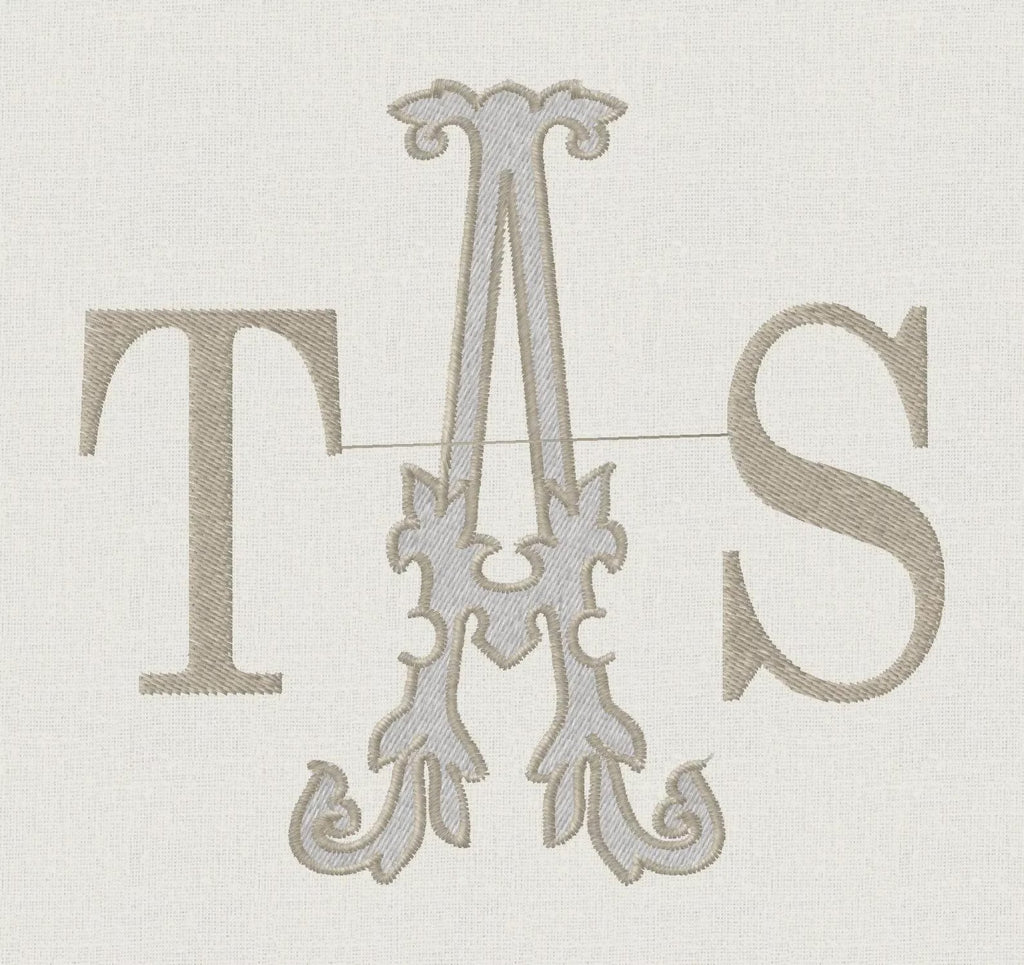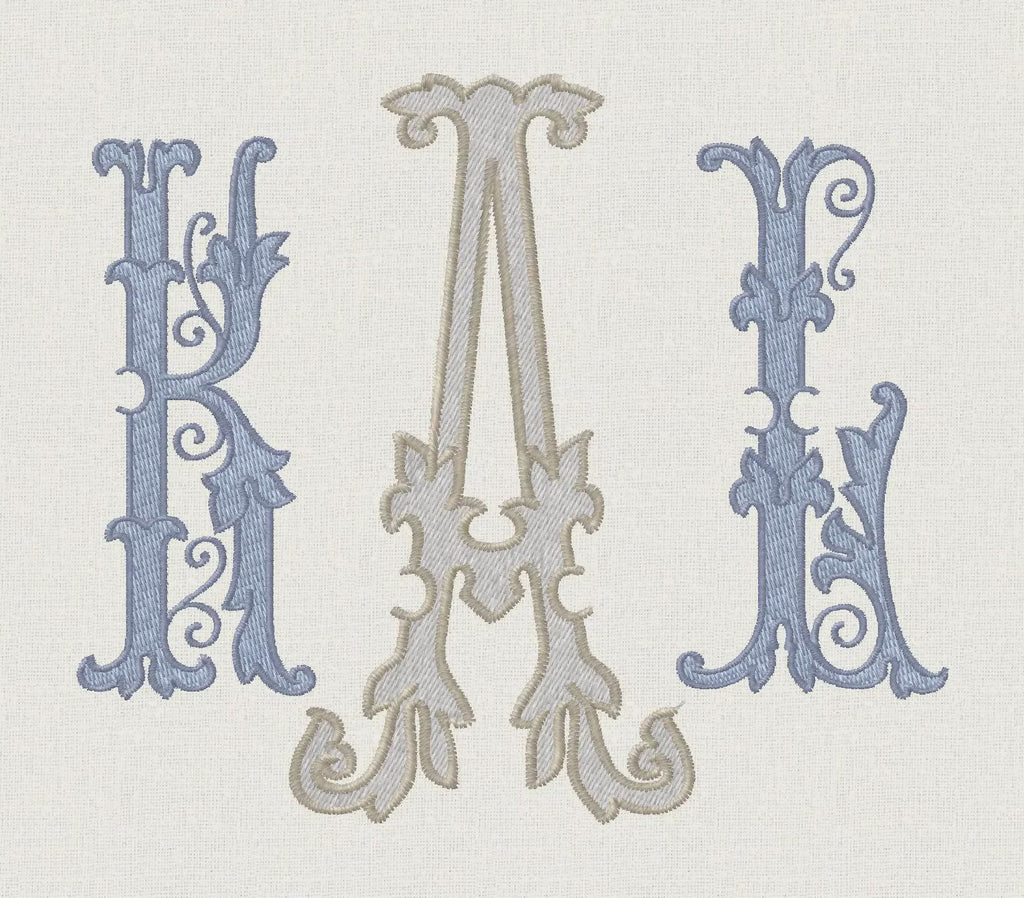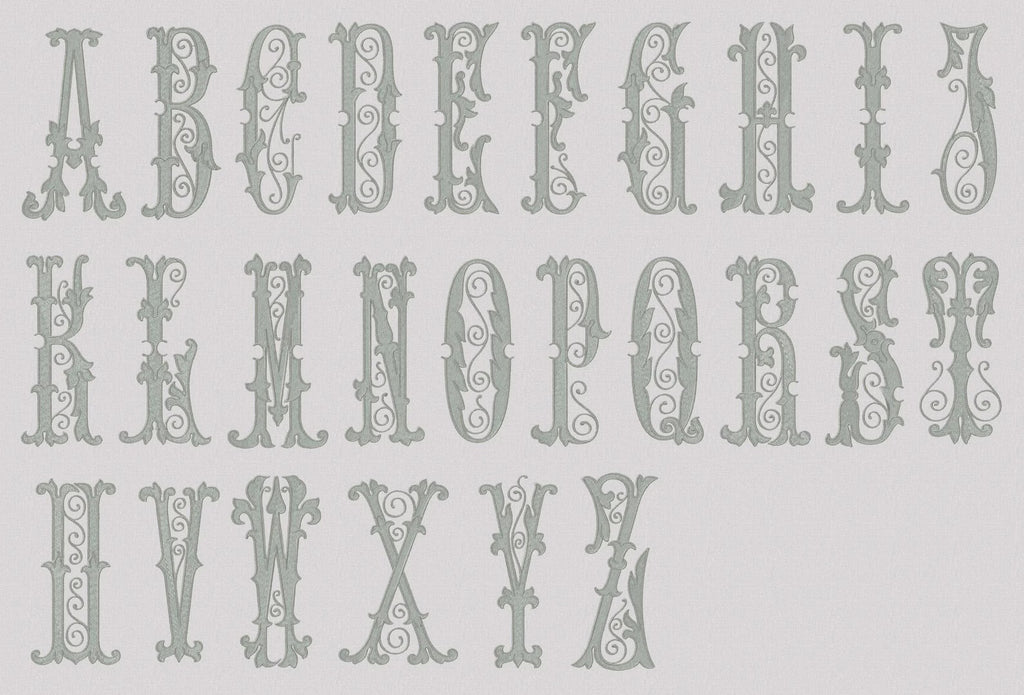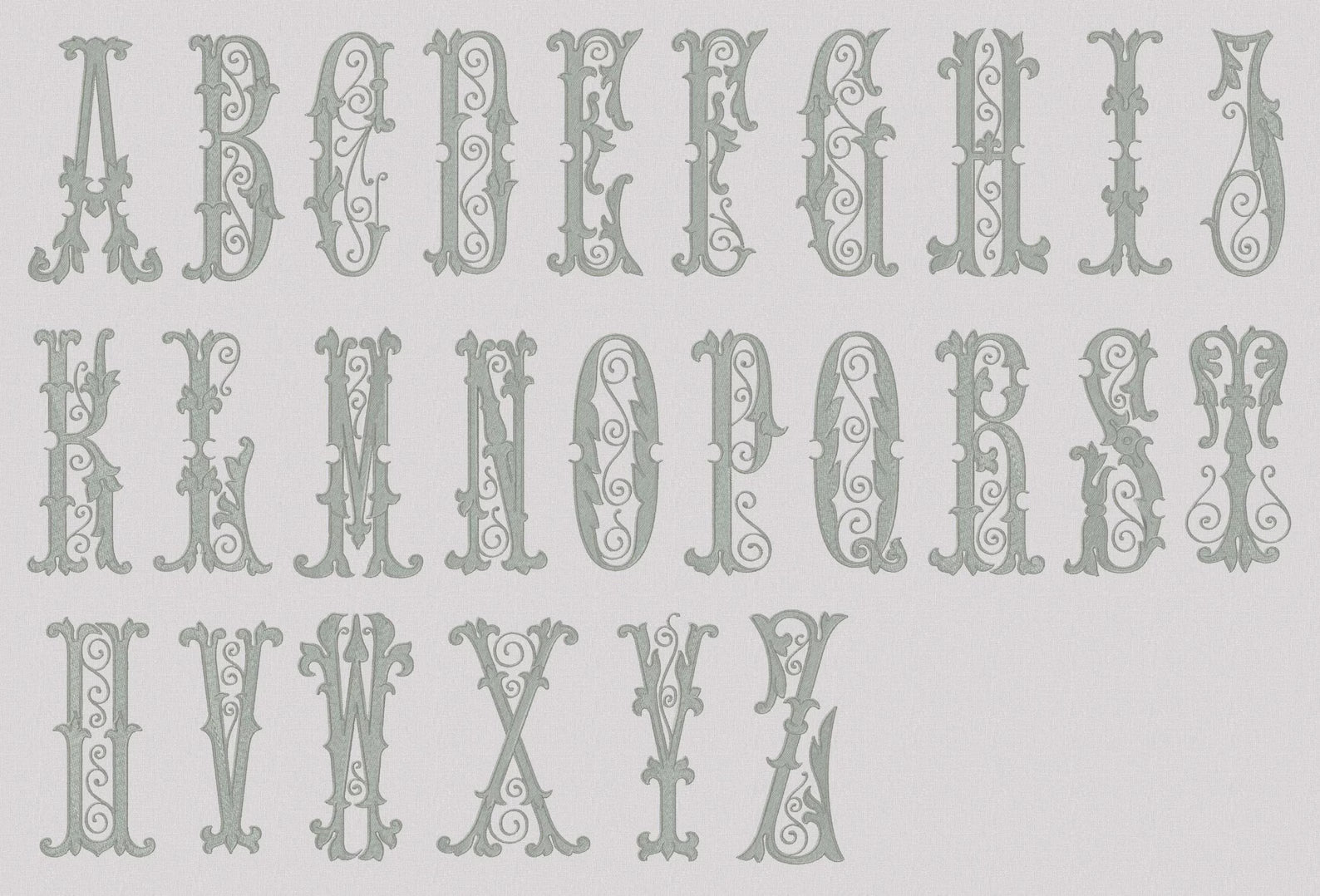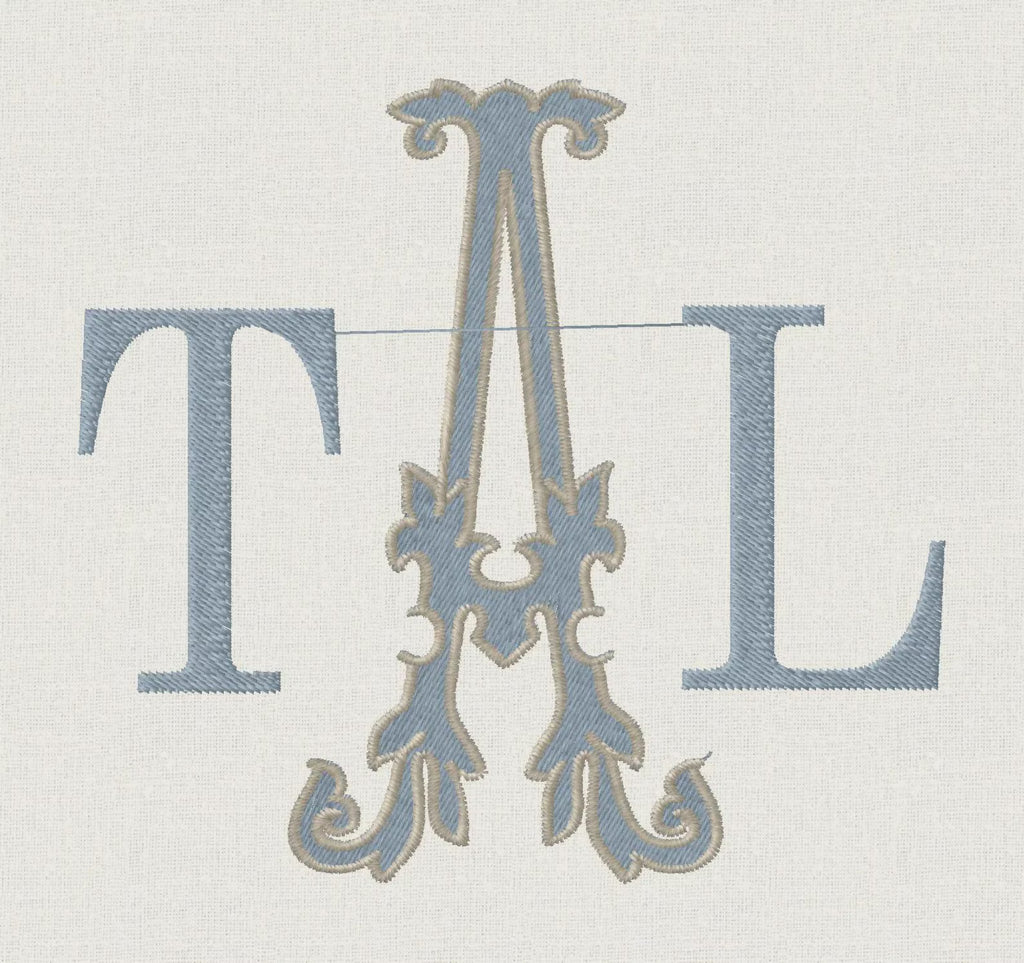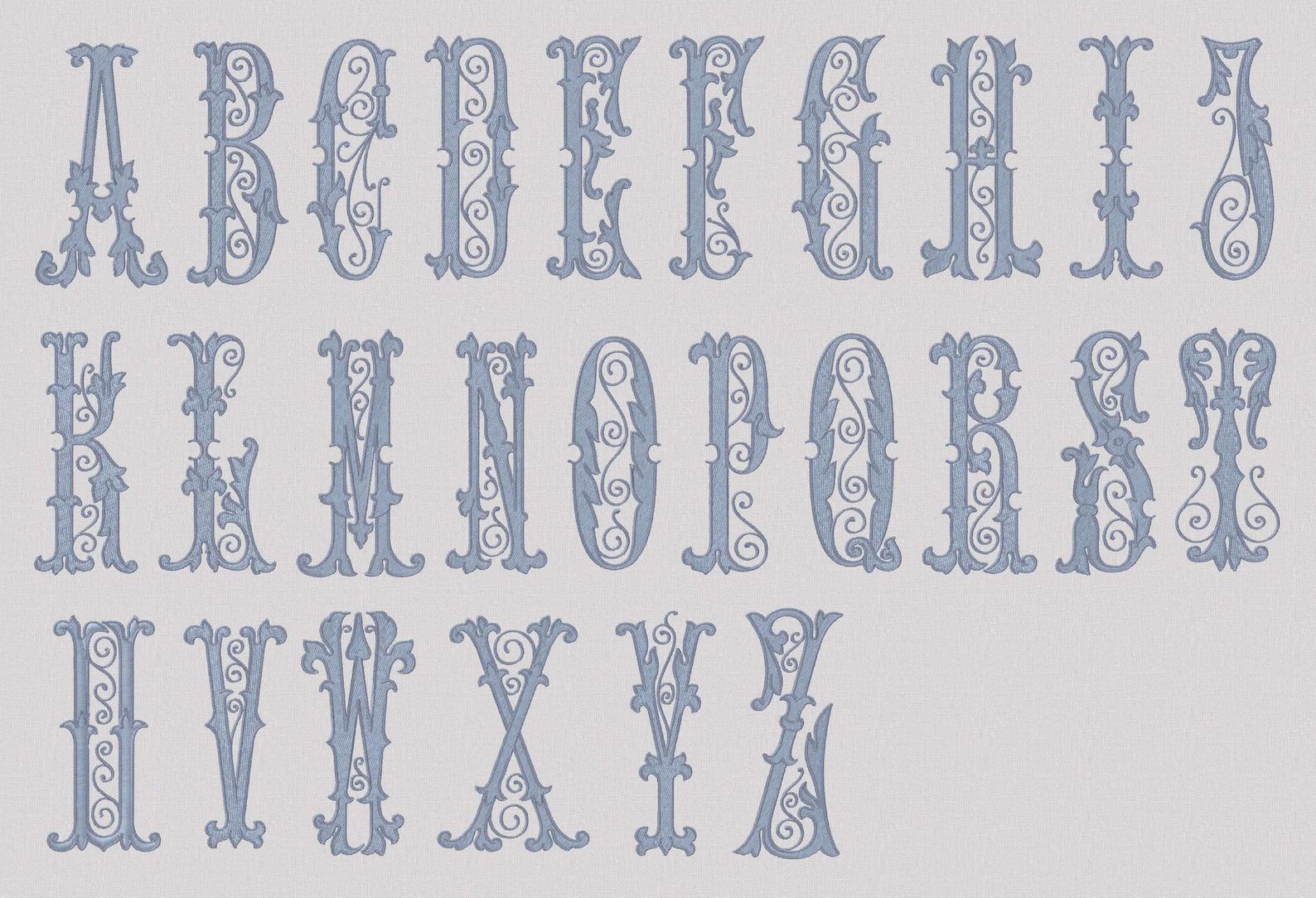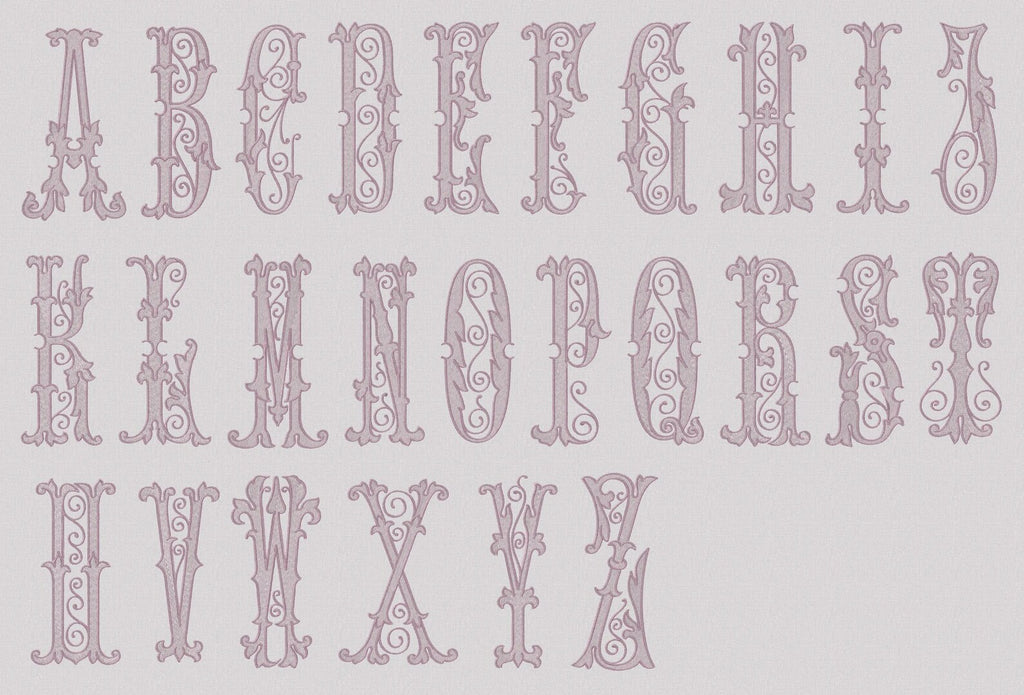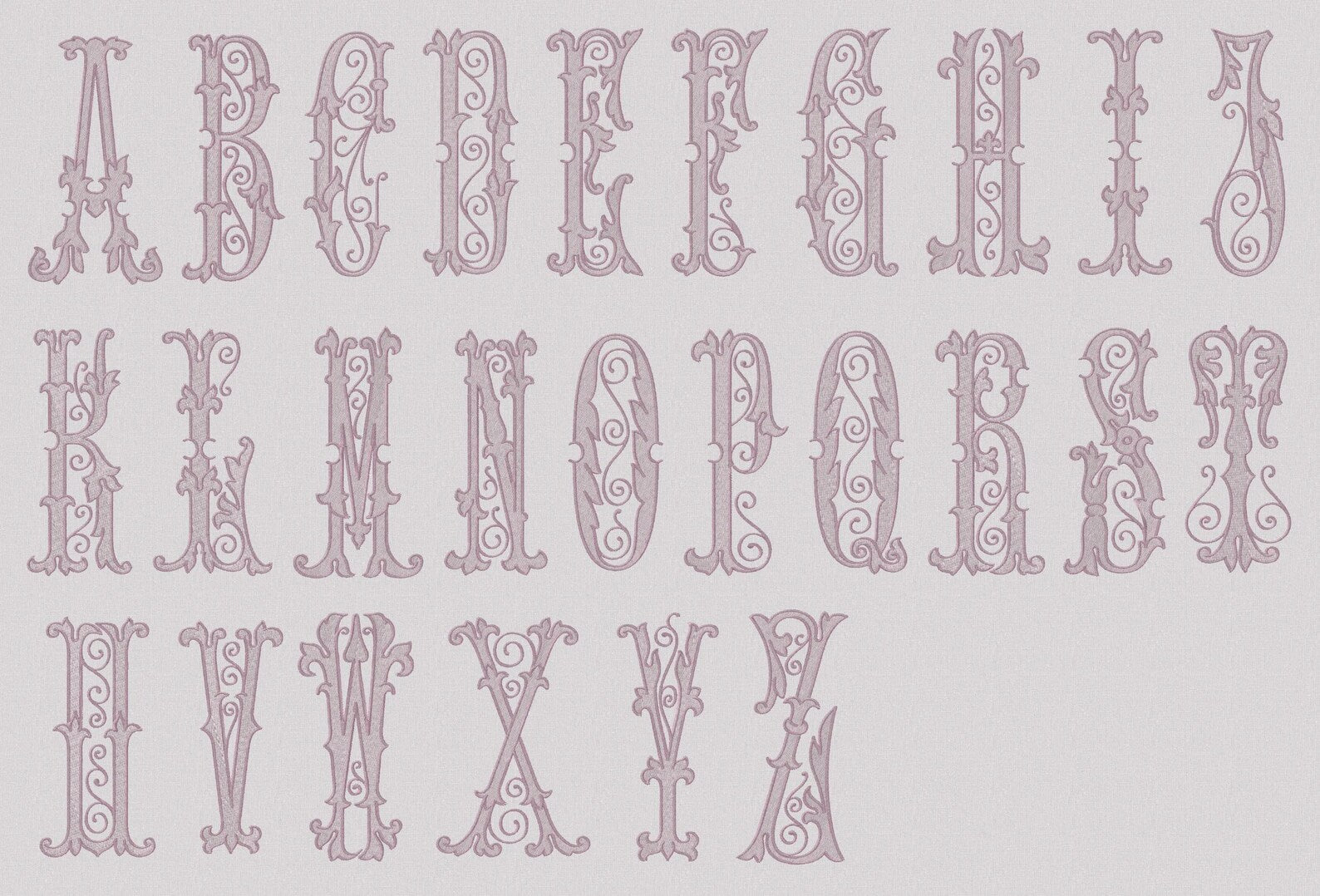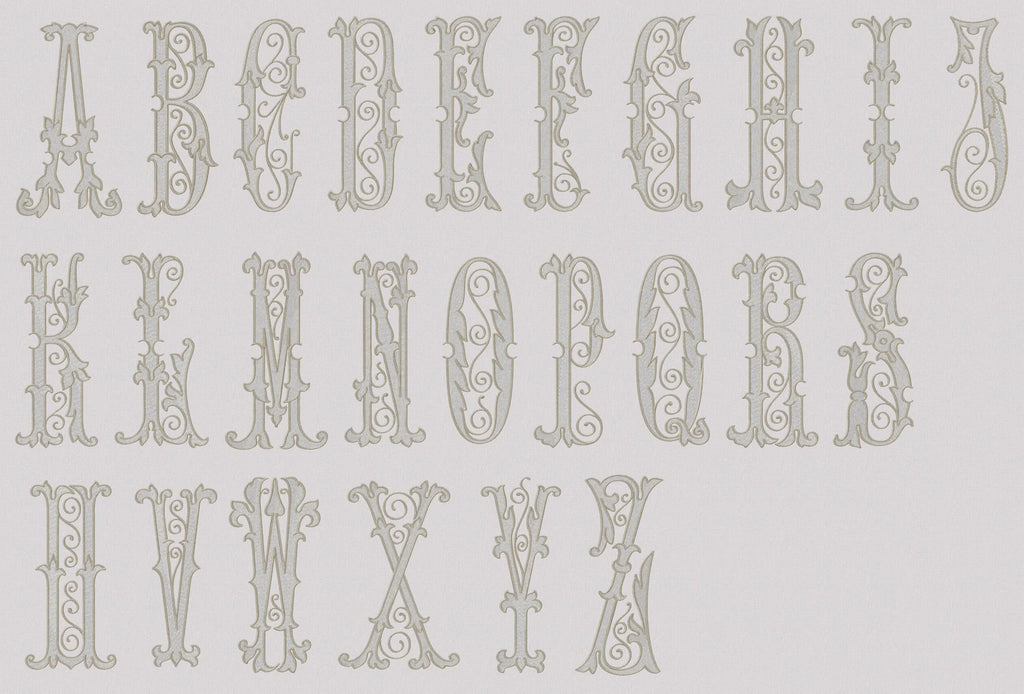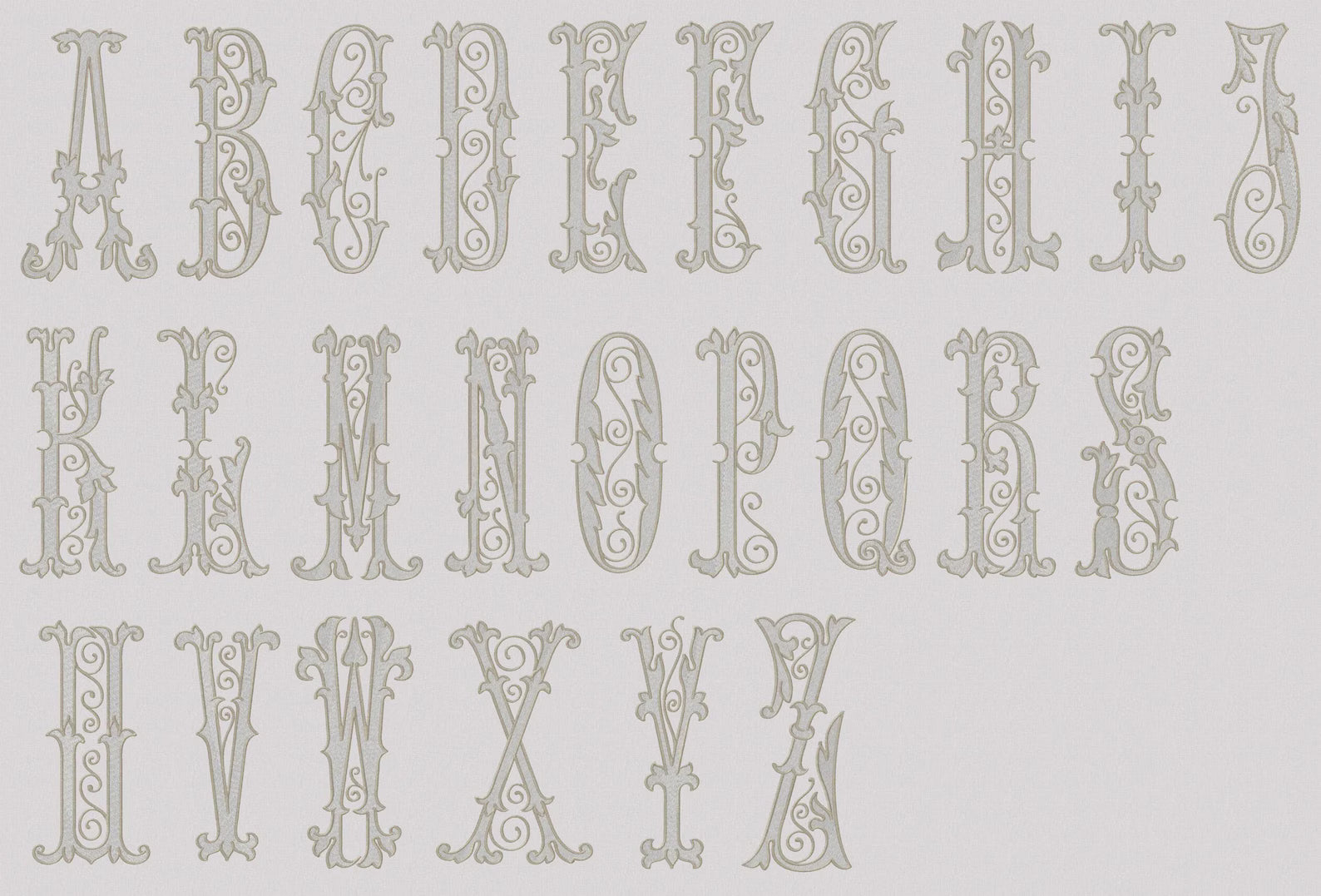
Satin & Fill- Use 1 or 2 color per letter- Can use the same color for satin & fill or 2 colors. Use alone or pair with a font you own!
4" & 8" to create a perfect 3 letter monogram
*2 block letters shown on sides are not part of the Florence font collection. They are a reference image showing how Florence looks paired with other fonts.* 4" letters beside the 8" letters look more like the font sized as the block letters are in final images.
Florence font stitches beautifully as 1 single big letter or 3 letters.